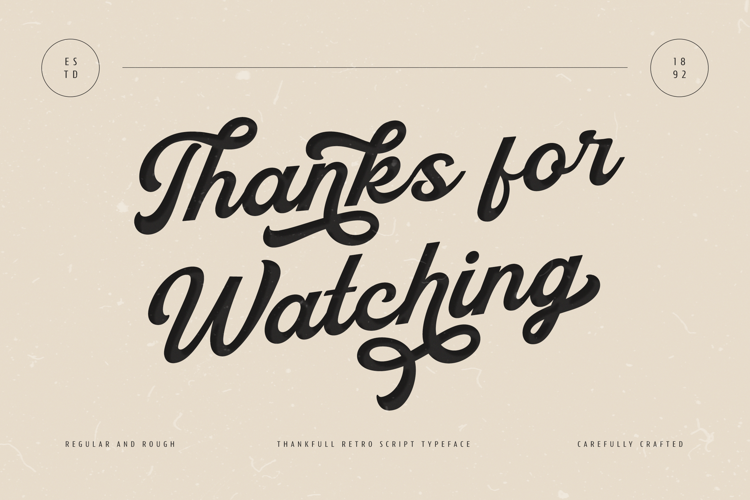
Thankfull Script Font
Script Style
Hand-lettered style font blends nostalgic script elements with a fresh modern twist—perfect for adding a bold, expressive look to your designs.